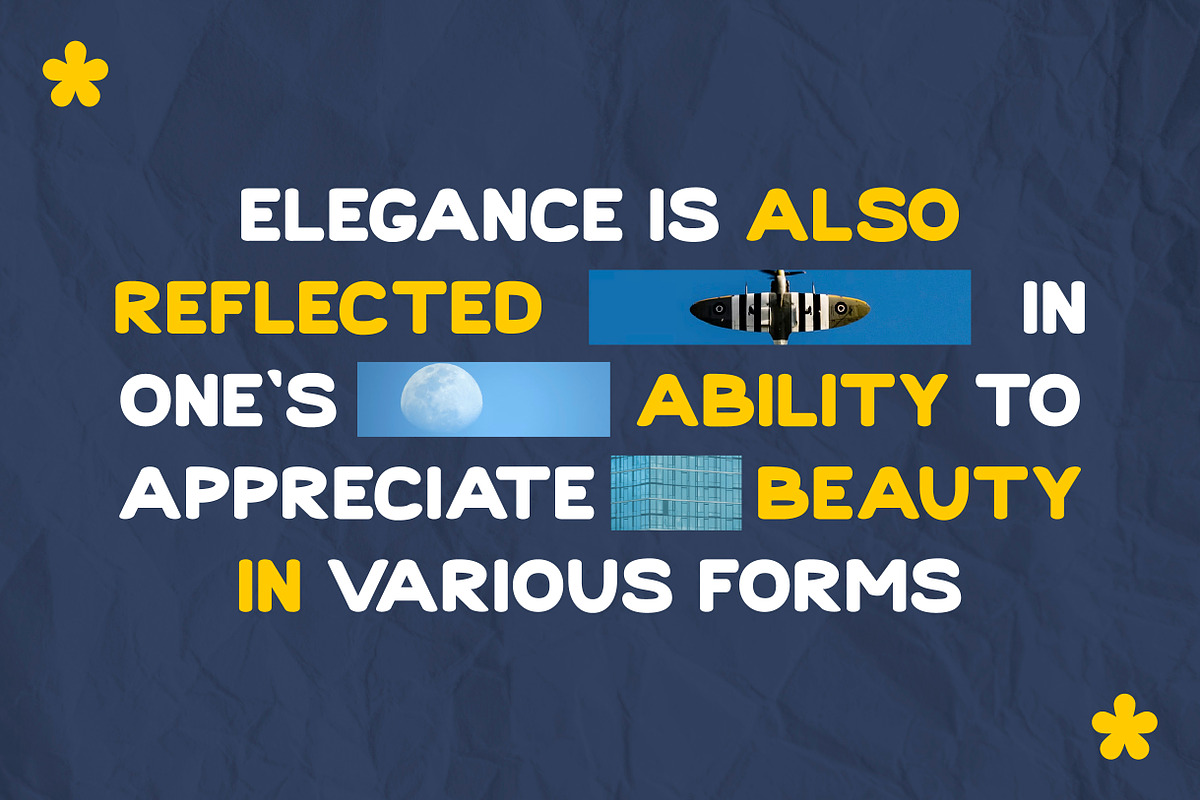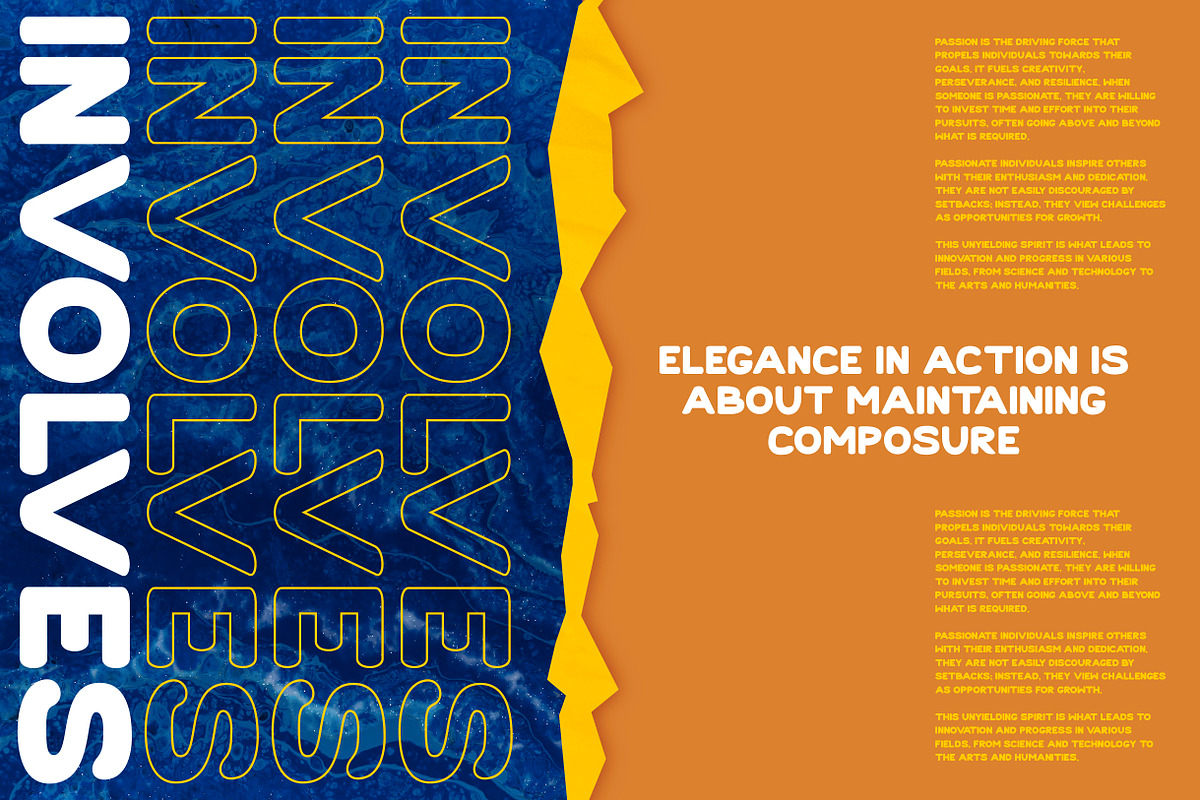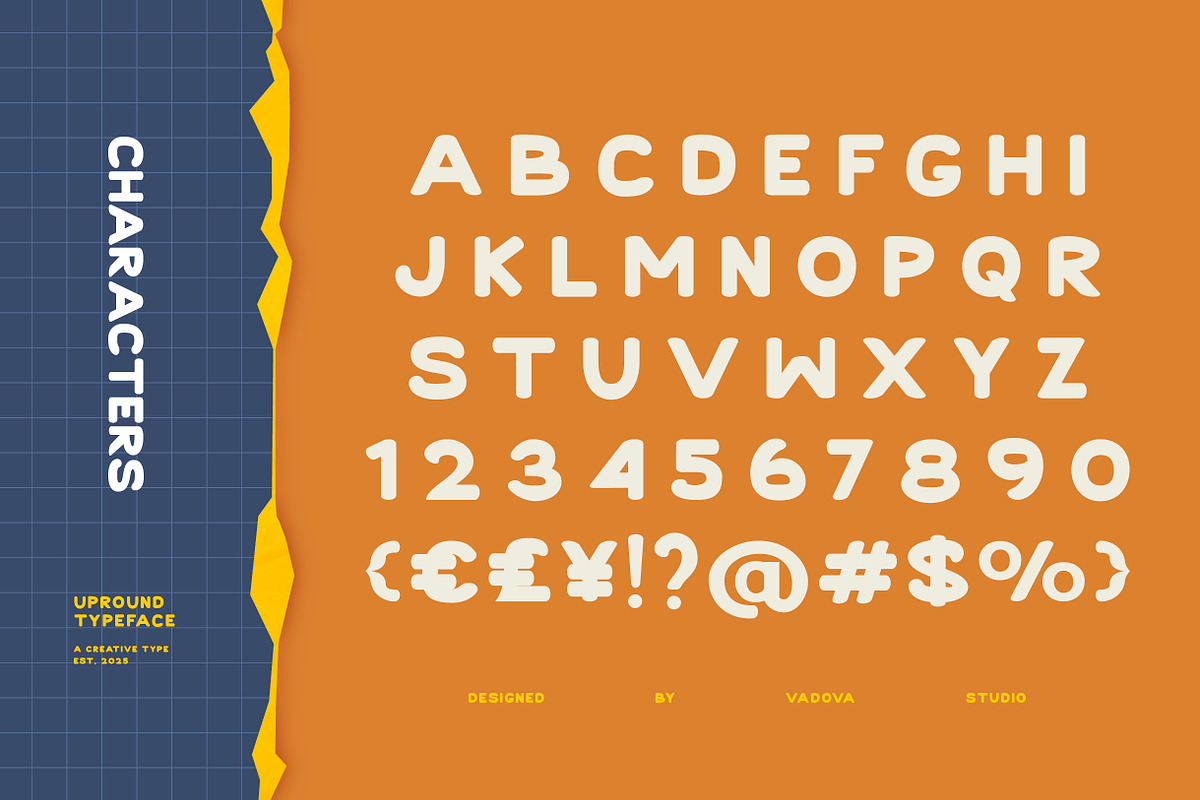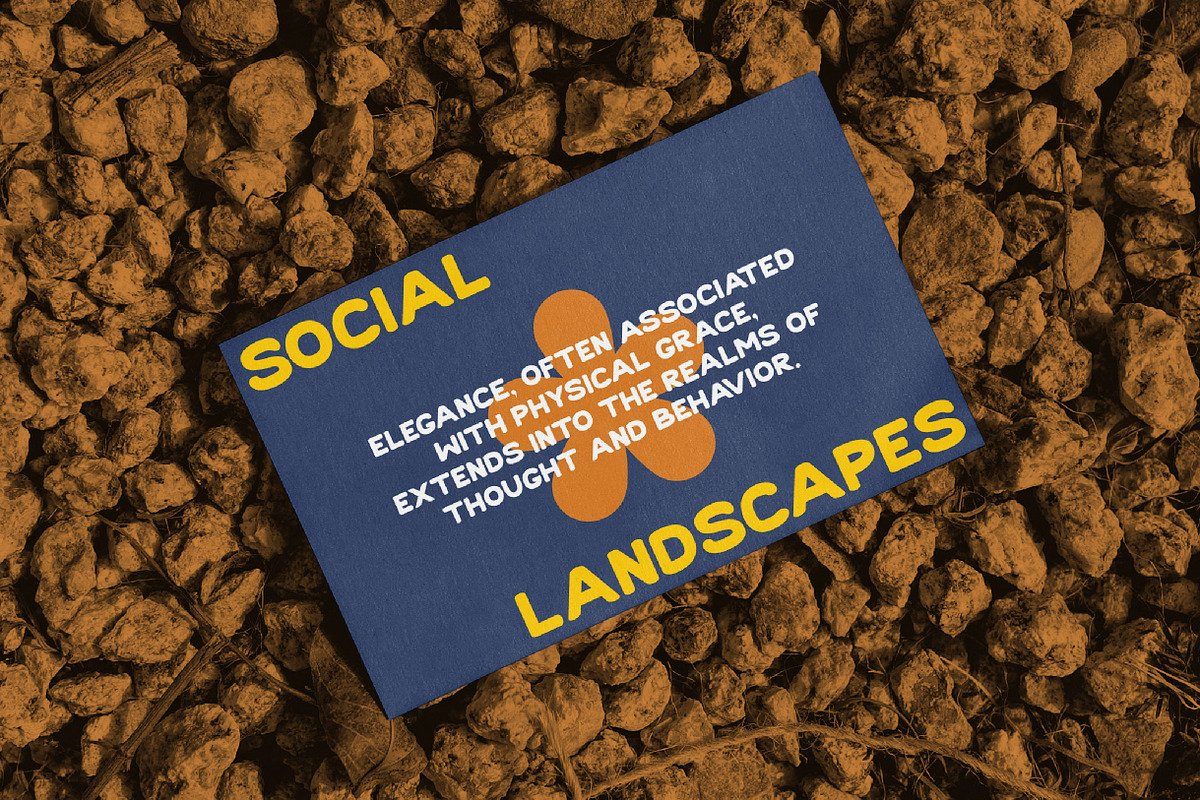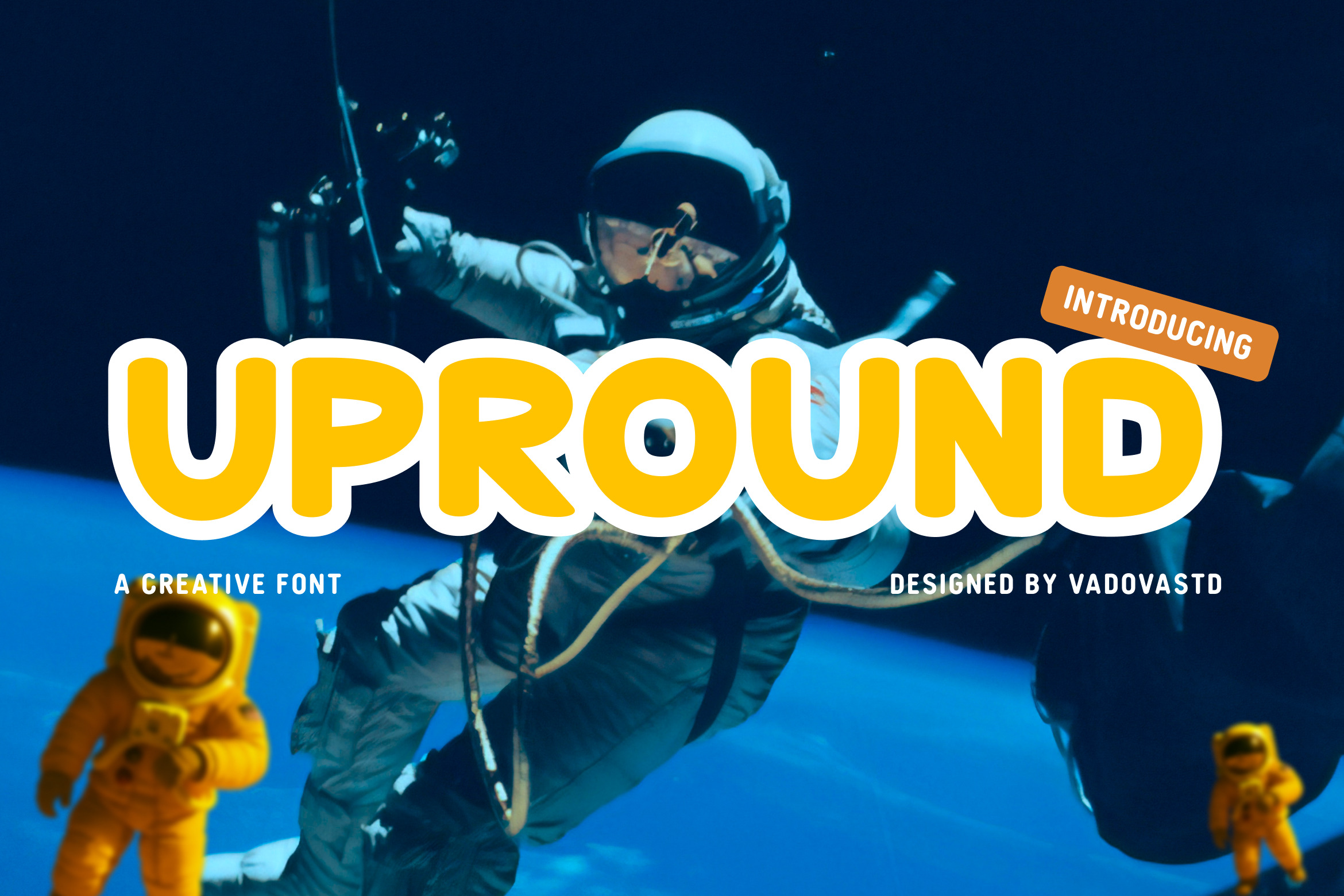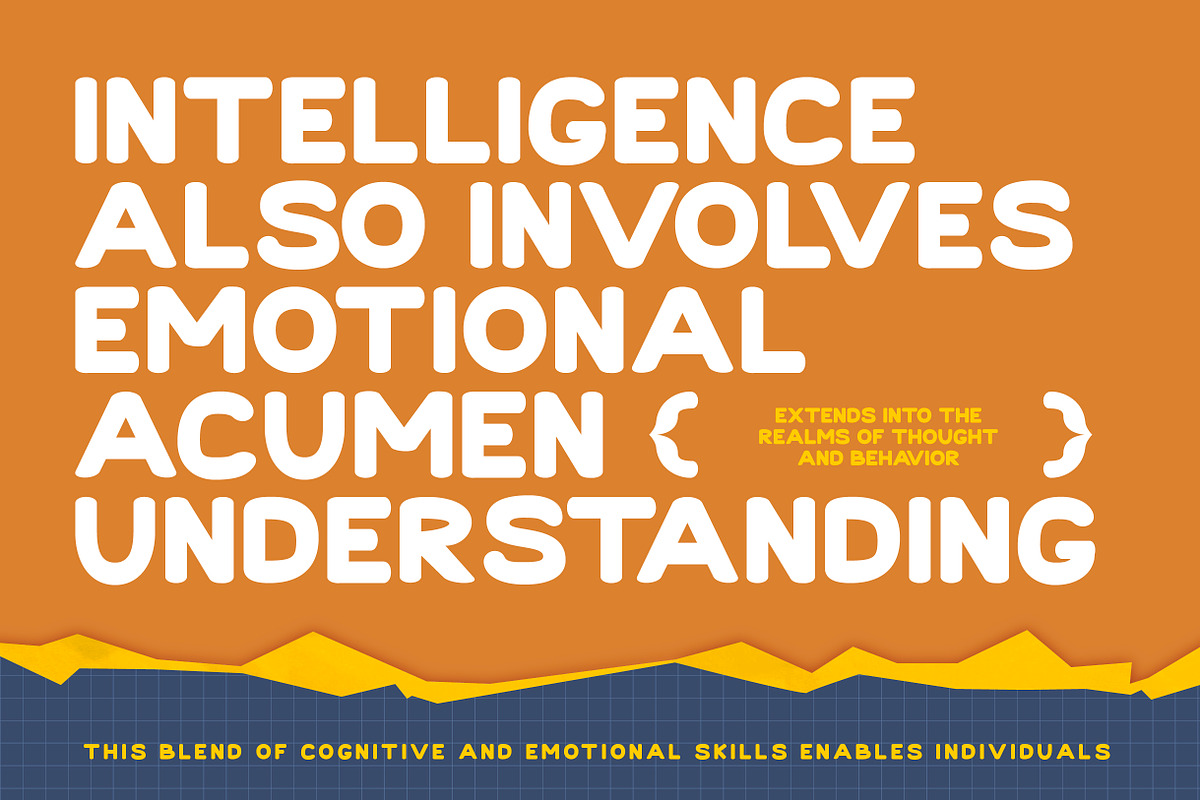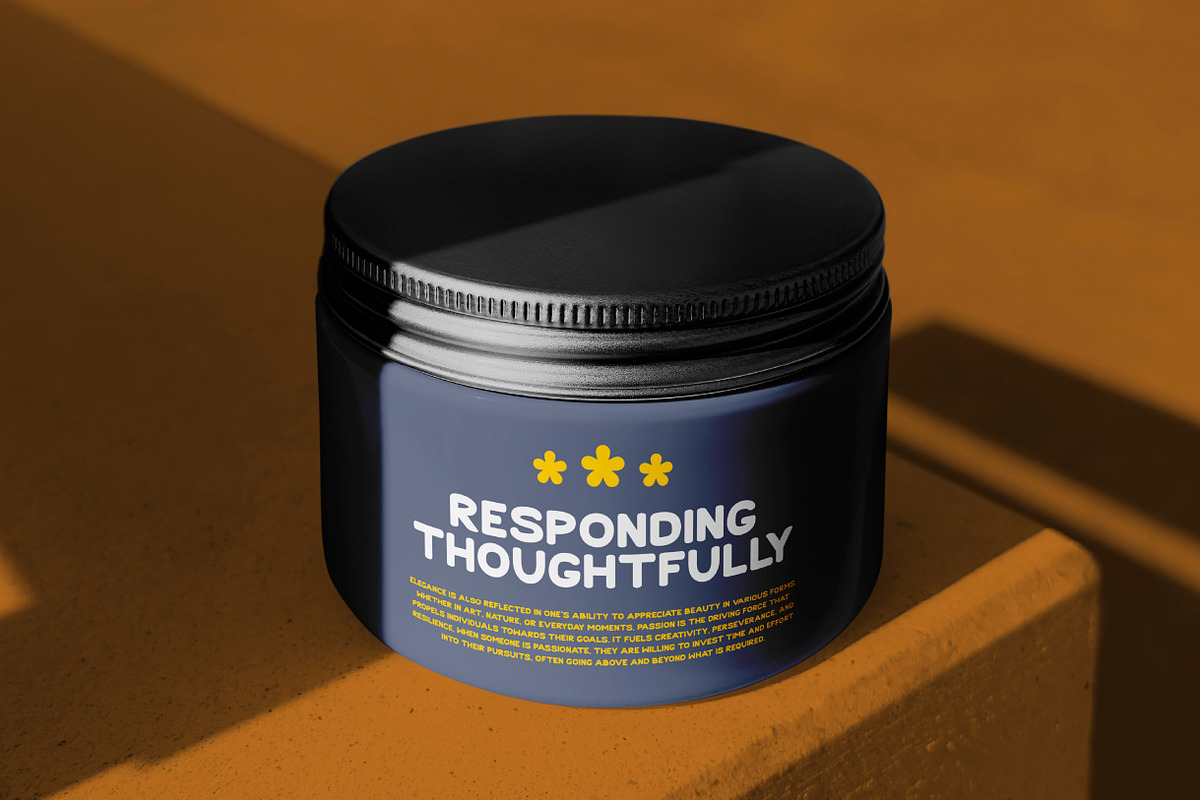
Upround Creative Font
Upround is a bold rounded display typeface designed with smooth curves and balanced geometric forms that create a friendly yet confident visual presence. The characters feature soft rounded terminals, wide proportions, and clean stroke construction, giving the font a modern and approachable personality suitable for impactful headlines and branding.
Upround is highly relevant for modern design projects that require bold readability with a friendly personality. It works well for branding systems, logo design, editorial headlines, posters, advertising graphics, social media campaigns, packaging design, website headers, and modern marketing materials where rounded shapes create an approachable and contemporary visual identity.
- Bold rounded letterforms with smooth geometric construction
- Soft curved terminals creating a friendly and approachable tone
- Balanced proportions for strong readability in display settings
- Clean stroke structure with consistent visual weight
- Spacious letterforms designed for impactful headlines and modern layouts
- Brand identity projects that need a bold yet friendly visual tone
- Logo design and modern branding for creative businesses and startups
- Poster headlines and advertising layouts that demand strong visual impact
- Product packaging and label designs with a playful contemporary look
- Social media graphics and digital marketing visuals that need eye-catching typography